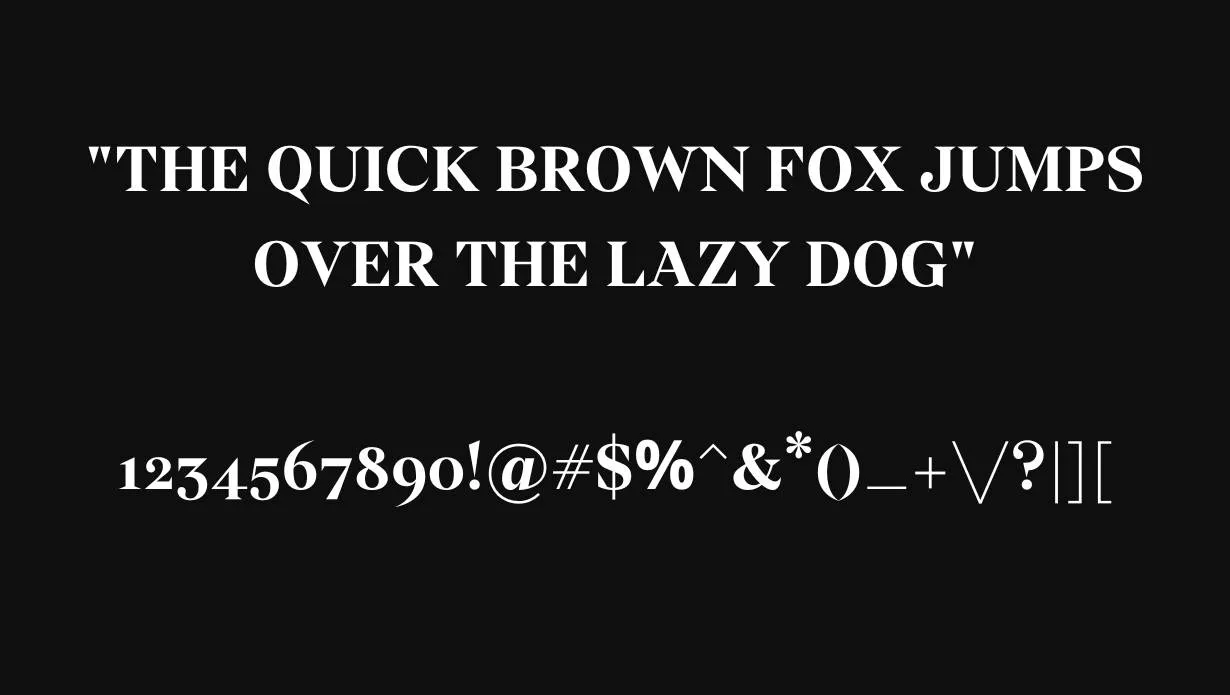
Wremena Font is a versatile and modern typeface with a clean and stylish design. It’s often used in various design applications, from branding to web design, where a contemporary and sophisticated appearance is desired.
With its clarity and versatility, Wremena Font adds a touch of modernity to your design work.
| Name | Wremena Font |
| Designer | Roman Gornitsky |